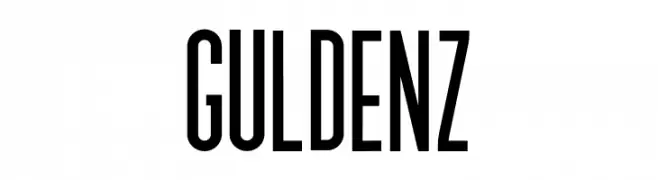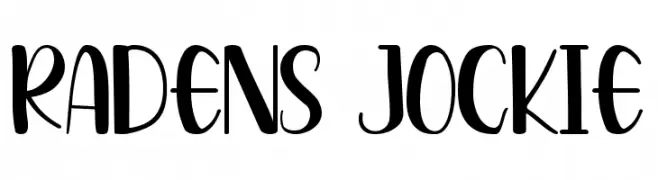
A bold, condensed italic font with a modern, dynamic style.
A bold, geometric, and condensed font with a futuristic style.
A bold, condensed Blackletter font with intricate Gothic styling.
A bold, condensed font with a modern and impactful style.
A bold, brush-style font with high contrast and dynamic, condensed characters.
A modern, condensed, and oblique font with sleek, elongated characters.
A bold, condensed gothic-style font ideal for impactful headlines.
A futuristic, condensed italic font with sharp, angular edges.
A bold, condensed font with a modern, angular design.
A bold, condensed, and italicized font with a futuristic and dynamic style.
A bold, condensed font with a geometric, pixelated style.
A narrow, extra-condensed font with elegant, elongated characters.
A bold, geometric display font with garden and nature illustrations.
A classic serif font with a condensed style and moderate contrast, ideal for formal use.
A futuristic, bold, and oblique font with a condensed style.
A bold, condensed font with a futuristic, geometric design.
A bold, condensed font with a vintage, decorative style.
A bold, condensed font with a vintage style, perfect for impactful designs.
A bold, geometric font with a futuristic and condensed design.
A bold, condensed italic font with a futuristic and angular design.
A bold, geometric font with a shadow effect and condensed, angular design.
A bold, geometric, and condensed font with a modern and impactful style.